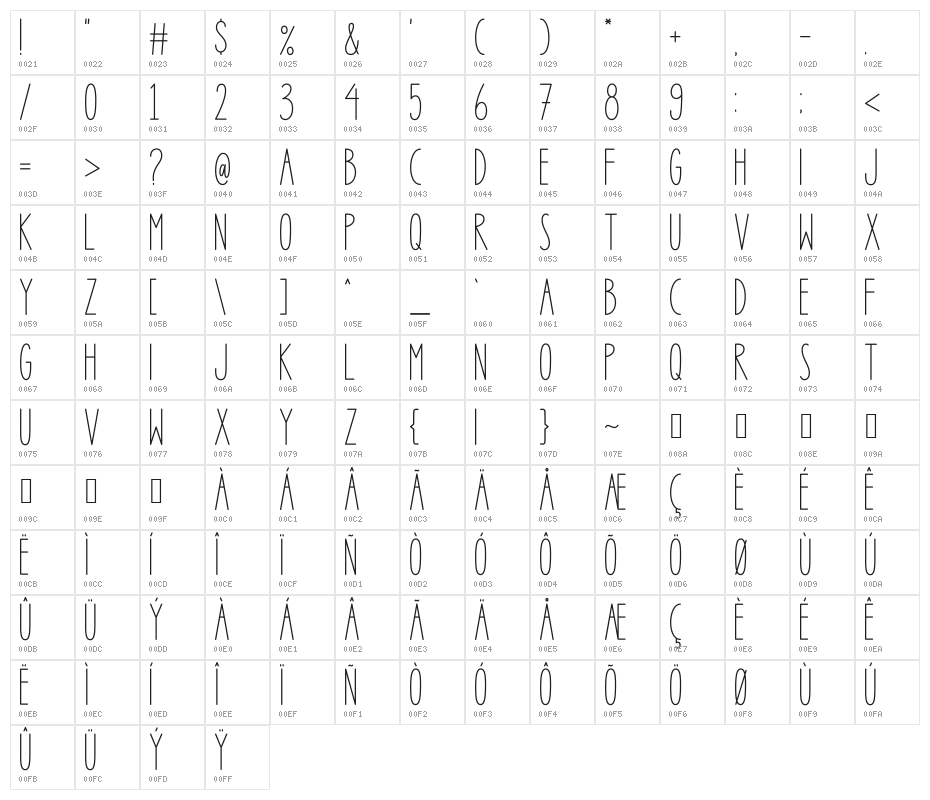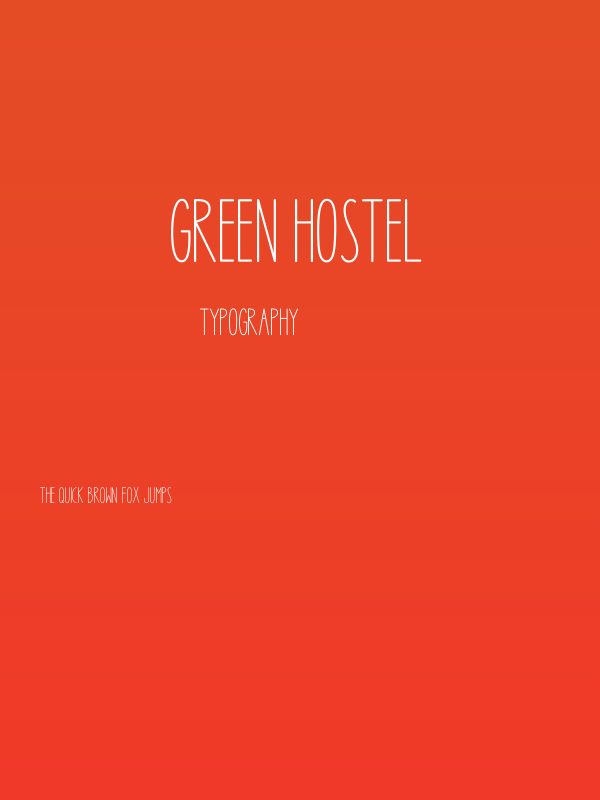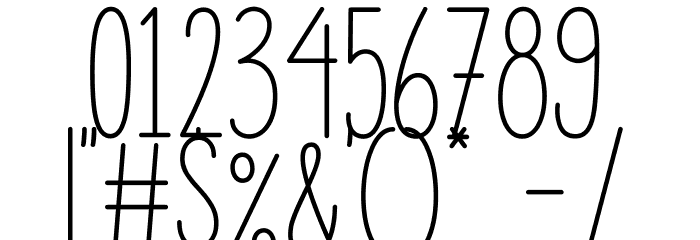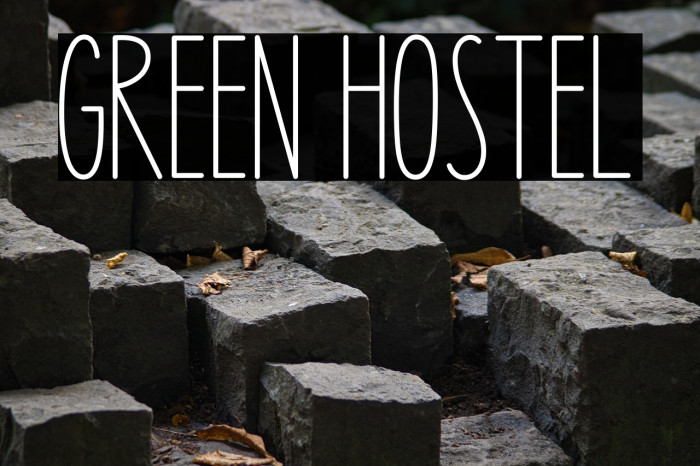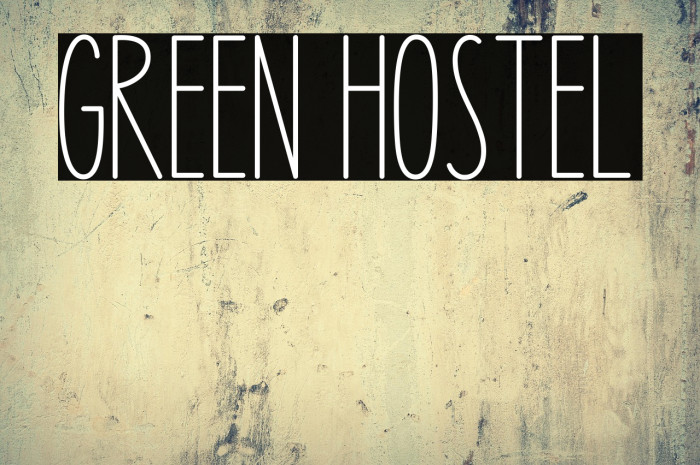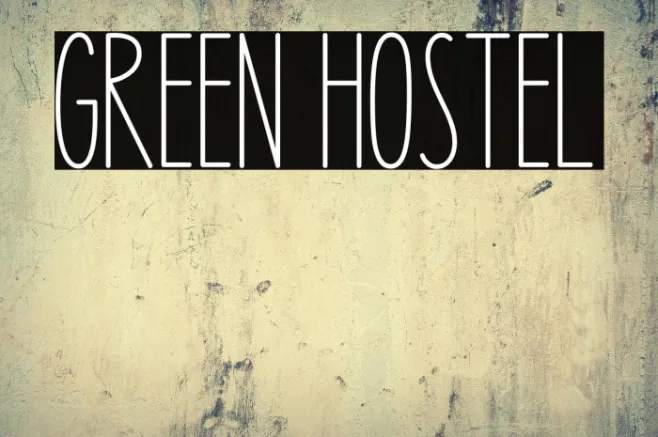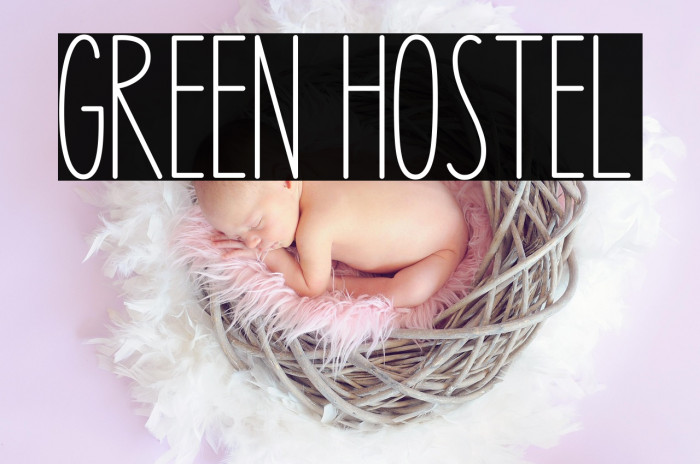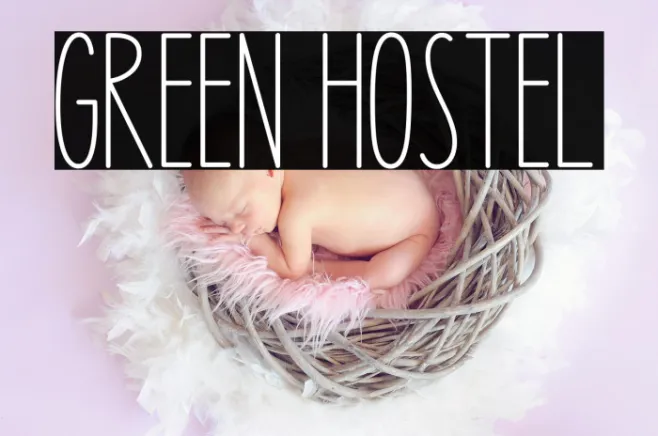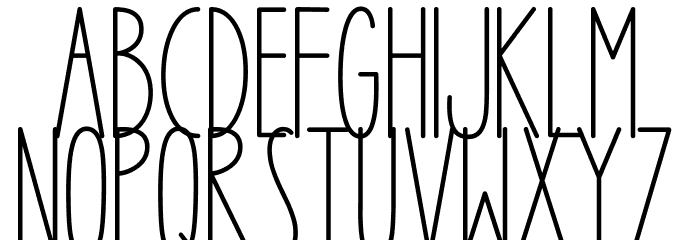
Green Hostel Font
Green Hostel Description
This font features a tall, narrow design with a modern and minimalist aesthetic. The characters are elongated with consistent stroke widths, giving it a sleek and elegant appearance. The uppercase and lowercase letters maintain a uniform height, contributing to a cohesive look. The numerals and special characters are designed to match the overall style, ensuring versatility across different uses. Its clean lines and geometric shapes make it suitable for contemporary design projects. The font's simplicity and clarity make it highly readable, even at smaller sizes, while its unique structure adds a touch of sophistication.
| Proposed Projects | Ideal for branding, editorial design, posters, and digital interfaces where a modern and sophisticated look is desired. |